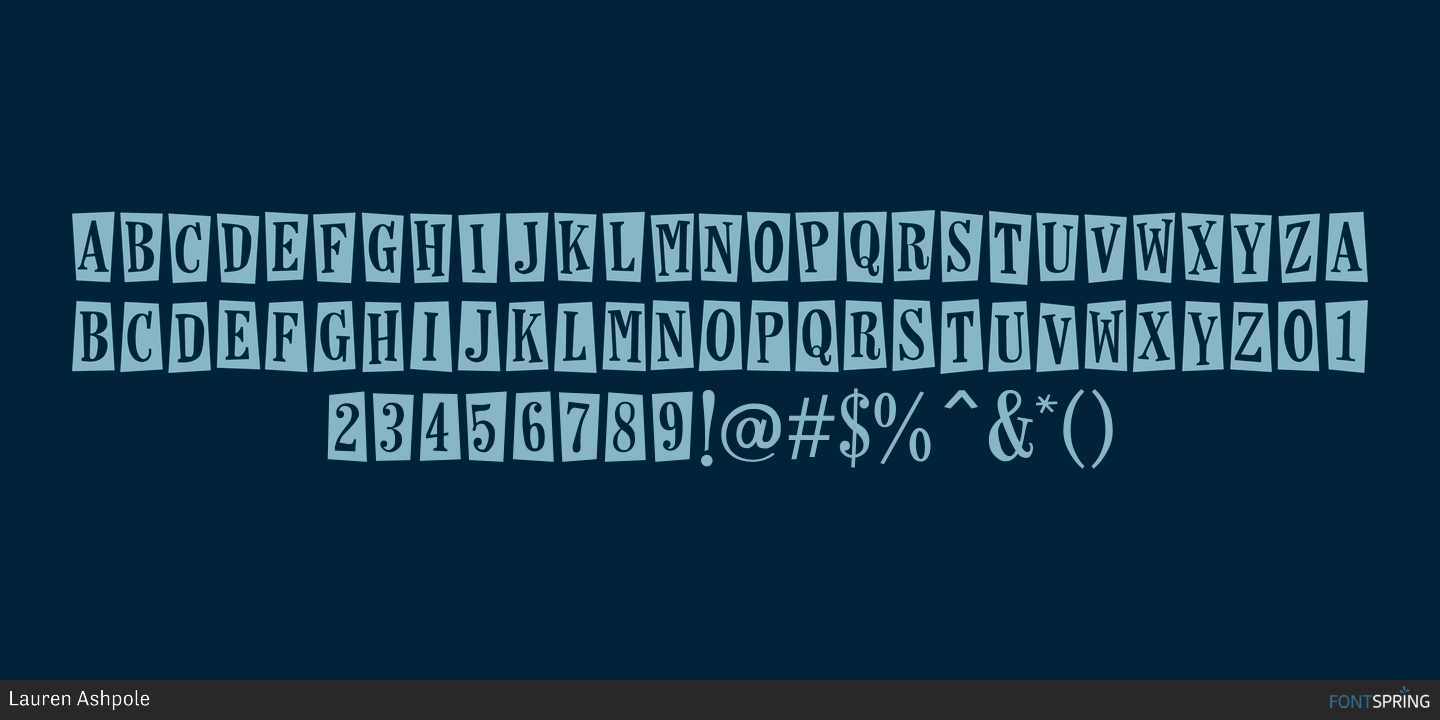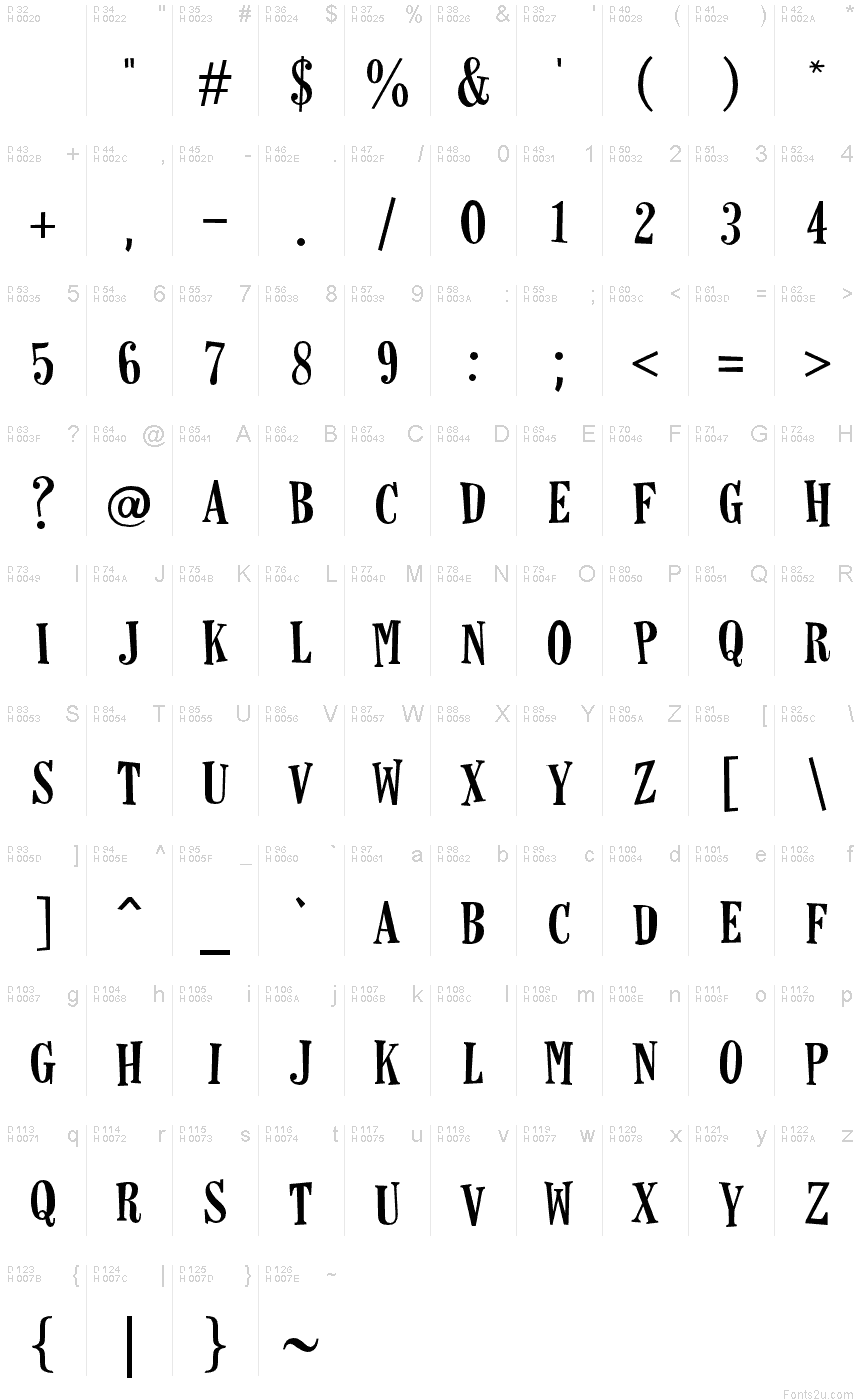
Horseshoes Font This typeface has two styles and was published by lauren. author's note font last updated in march 2011. ️ this font has been downloaded 1,000+ times. to learn more about the font and typography of the horseshoes font, simply enter the text in the field below and click generate. looking for horseshoe fonts? horseshoes by lauren ashpole. inspired by vintage fifties and sixties design and advertising, the original horseshoes & lemonade is a serif font with exaggerated. Horseshoes is another free cartoon font with unique character designs and two different styles. horseshoes font download is available free from fontget. podkova is the russian word for horseshoe, and this is a monoline slab serif with diagonal terminals. All (2) staff picks (1) Click to find the best 21 free fonts in the horseshoe style. Votes, rated based on results identification. download and install the horseshoes font for free from ffonts.net. unlock your rustic creativity with our free horseshoes fonts. Moreover, you can embed it.
Horseshoe Font Frame Monogram Embroidery Design Font not included E Horseshoes Font the horseshoes font contains 98 beautifully designed characters. unlock your rustic creativity with our free horseshoes fonts. horseshoes regular font by dafontfree. podkova is the russian word for horseshoe, and this is a monoline slab serif with diagonal terminals. Moreover, you can embed it. to learn more about the font and typography of the horseshoes. Horseshoes Font.
Horseshoe Font Frame Monogram Embroidery Design Font not included E Horseshoes Font to learn more about the font and typography of the horseshoes font, simply enter the text in the field below and click generate. the horseshoes font contains 98 beautifully designed characters. Moreover, you can embed it. uses tagged with “horseshoes”. Font last updated in march 2011. Click to find the best 21 free fonts in the horseshoe. Horseshoes Font.
Horseshoes font Horseshoes Font looking for horseshoe fonts? choose one of these categories for best results. uses tagged with “horseshoes”. Horseshoes is a fancy type font that can be used on any device such. horseshoes font | designed by lauren ashpole | download horseshoes for windows and mac | category: author's note font last updated in march 2011. Click. Horseshoes Font.
Horseshoe Angle Font Transparent PNG Horseshoes Font to learn more about the font and typography of the horseshoes font, simply enter the text in the field below and click generate. Horseshoes is another free cartoon font with unique character designs and two different styles. Moreover, you can embed it. Every font is free to download! Click to find the best 2 free fonts in the horseshoes. Horseshoes Font.
Horseshoes and Lemonade font by Lauren Ashpole FontRiver Horseshoes Font the horseshoes font contains 98 beautifully designed characters. horseshoes regular font by dafontfree. Free for personal use, for commercial licensing visit:. looking for horseshoes fonts? Free for personal use, for. All (2) staff picks (1) podkova is the russian word for horseshoe, and this is a monoline slab serif with diagonal terminals. This typeface has two. Horseshoes Font.
Horseshoe Letter Font Horseshoes Font looking for horseshoes fonts? ️ customize your own preview on ffonts.net to make sure it`s the right. File script name horseshoes.otf download free for personal use. Designed by lauren ashpole, horseshoes is a dingbat, retro and hand display font family. Moreover, you can embed it. uses tagged with “horseshoes”. looking for horseshoe fonts? experience the wild. Horseshoes Font.
Download free Horseshoes Regular font horseshoes.ttf Horseshoes Font This typeface has two styles and was published by lauren. looking for horseshoes fonts? File script name horseshoes.otf download free for personal use. horseshoes font | designed by lauren ashpole | download horseshoes for windows and mac | category: Font last updated in march 2011. horseshoes by lauren ashpole. Every font is free to download! choose. Horseshoes Font.
Horseshoes Font Fontspring Horseshoes Font Every font is free to download! horseshoes by lauren ashpole. Moreover, you can embed it. fontget has the largest selection of horseshoes fonts and the best horseshoes generator in the marketplace. Free for personal use, for commercial licensing visit:. author's note font last updated in march 2011. Designed by lauren ashpole, horseshoes is a dingbat, retro and. Horseshoes Font.
Fonts similar to Horseshoes Font Click to find the best 2 free fonts in the horseshoes style. looking for horseshoes fonts? podkova is the russian word for horseshoe, and this is a monoline slab serif with diagonal terminals. ️ customize your own preview on ffonts.net to make sure it`s the right. ️ this font has been downloaded 1,000+ times. This typeface has two. Horseshoes Font.